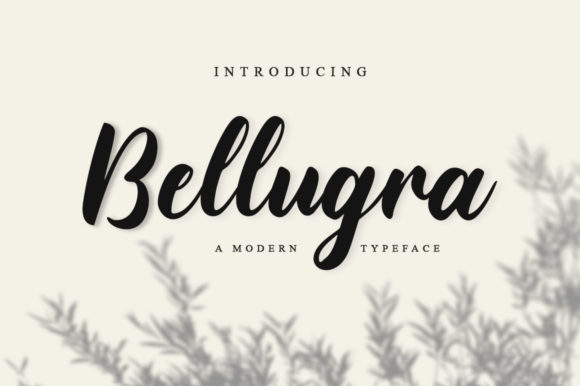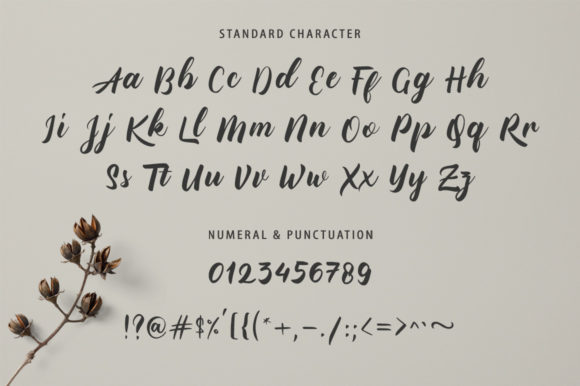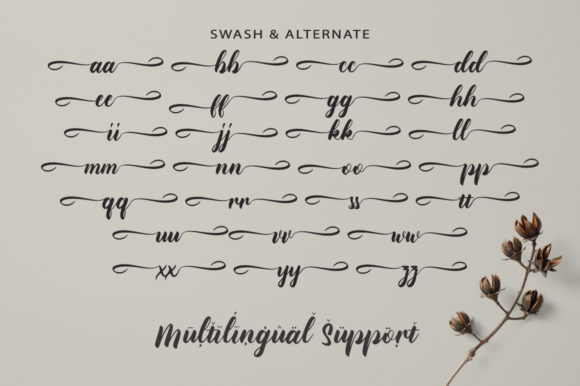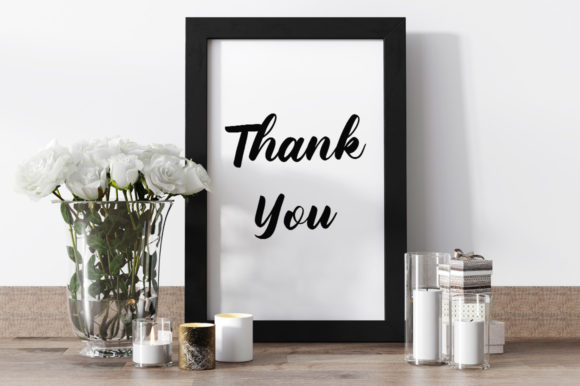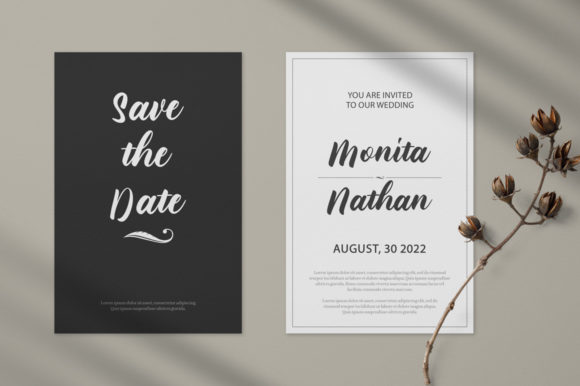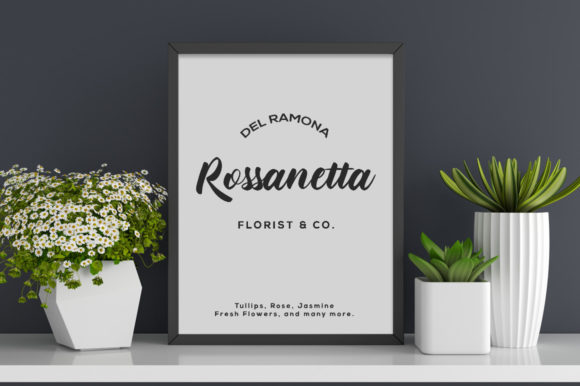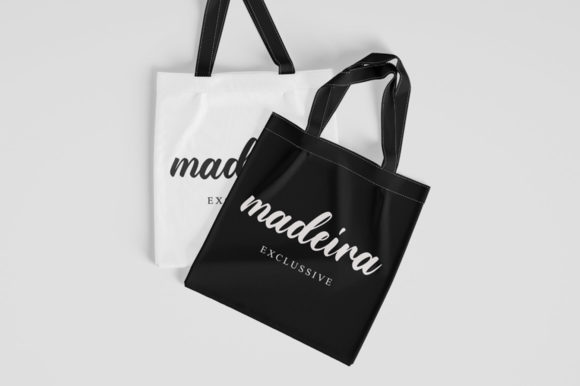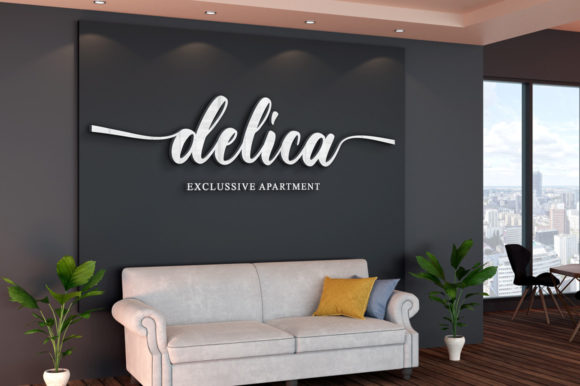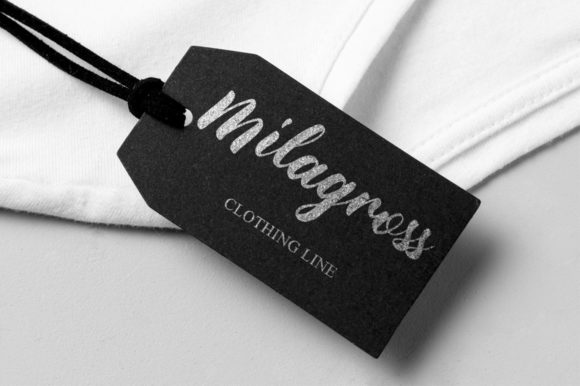
Bellugra Font
About Bellugra Font
Bellugra is a lovely script font featuring charming, playful characters that seem to dance along the baseline. Add this font to your most creative ideas, and notice how it makes them stand out! Bellugra is PUA encoded which means you can access all of the beautiful glyphs and swashes with ease!